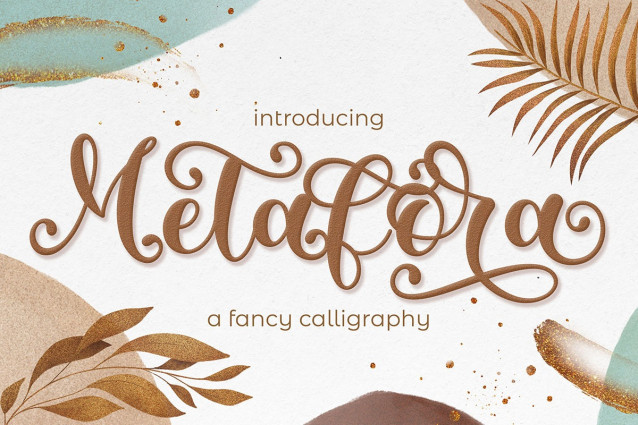
Metafora Font
Metafora Font is a fancy calligraphy with many alternative styles, this font looks natural, elegant and perfect for any extraordinary project. Metafora is suitable for various products such as invitations, product packaging, quotes, product design, crafter, labels, photography, watermarks, logos & branding and very suitable for design Valentine day, mother day, wedding, spring, christmas, etc.Everything Stylistic Altternate can be accessed using software that supports Opentype, such as Adobe Indesign, Adobe CS Illustrator, Adobe Photoshop CC, and Corel Draw or I have provided OTF & TTF for swash and stylistic alternates.